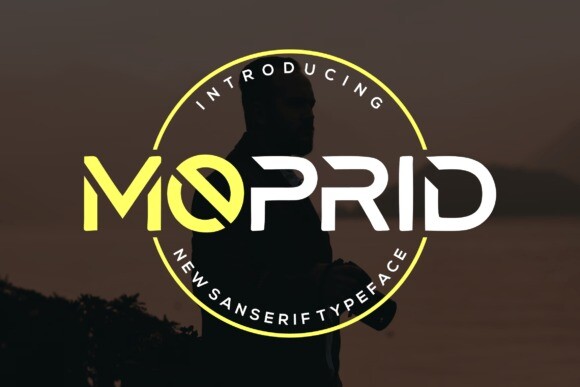
Moprid Font
Designer: cozzdesign0
Moprid is a modern sans serif font that is clean and easy to read. Its smooth lines and simple shapes make it perfect for both titles and body text, giving a fresh and stylish look to any design.